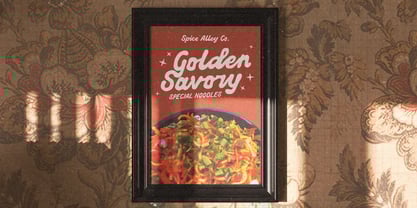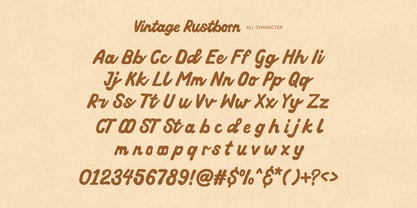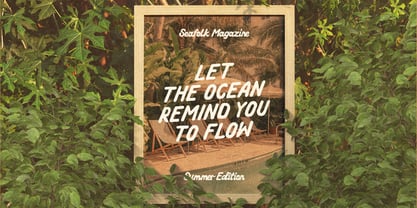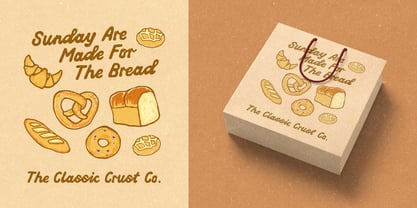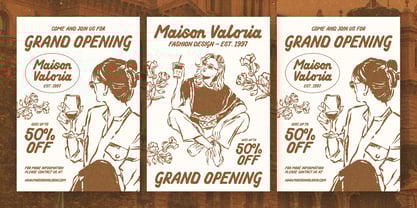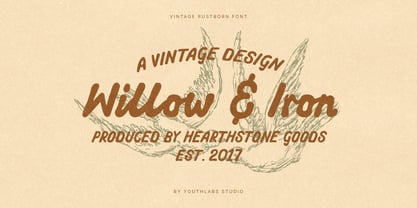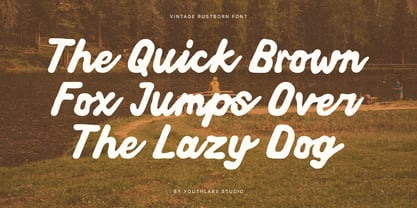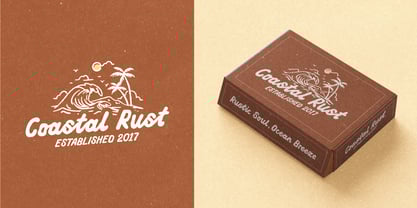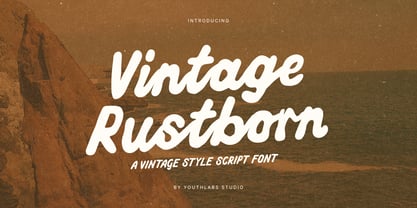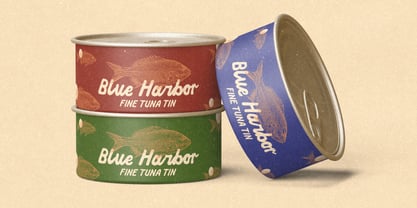
Vintage Rustborn
by Youthlabs
The Vintage Rustborn Font Family was designed by Fathi Al Ghazi and published by Youthlabs. Vintage Rustborn contains 1 styles. More about this family
Vintage Rustborn is a bold retro script font inspired by 60s–70s signage, warm coastal aesthetics, and nostalgic handwritten brush lettering. With smooth curves and thick strokes, it brings an authentic vintage feel perfect for branding, posters, merchandise, and retro-themed creative projects. Its clean yet textured charm makes it ideal for logos, travel graphics, outdoor lifestyle designs, editorial titles, and anything that seeks a warm, timeless vintage personality. ✨ Key Features: Authentic vintage script style Bold, smooth, and rounded strokes Retro coastal-inspired aesthetic Uppercase & lowercase characters Punctuation & multilingual support Great for logos, posters, packaging & apparel Perfect for retro branding and nostalgic moods
Designers: Fathi Al Ghazi
Foundry: Youthlabs